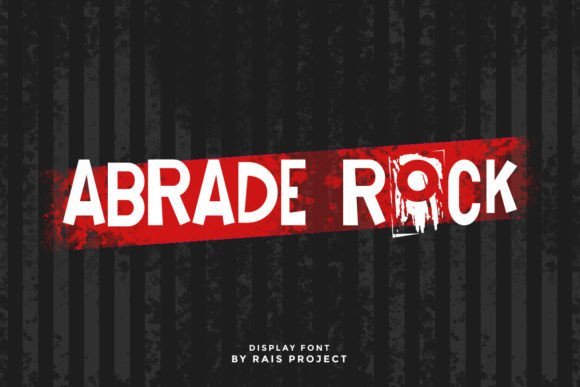
Introduction to Abrade Rock Font
Abrade Rock Font is a display font with a special style inspired by band rock and the music industry.
This font would be perfect for those who need an artistic look, such as artists, business cards, custom designs, film directors, musicians, posters, and more This font is PUA encoded which means you can access all of the amazing glyphs and ligatures with ease.
Key Features of Abrade Rock Font